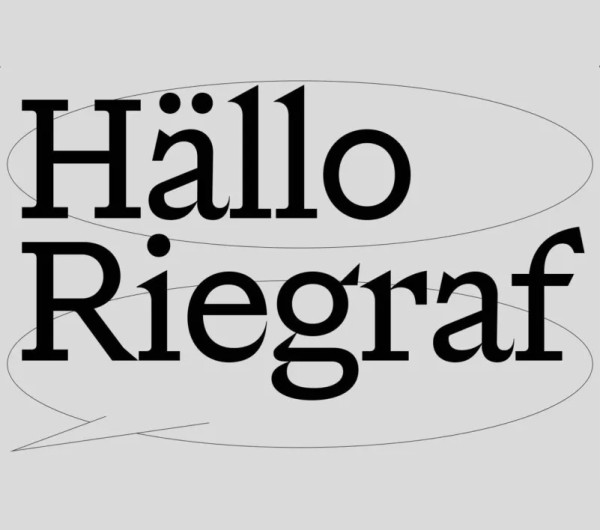
Riegraf Font
Riegraf Font is a simple and serif font crafted & designed by Interval Type. It was born out of an idea of designing a Serif typeface that feels like a geometric Sans-serif grotesk, while preserving the elegance usually associated with Serif typefaces.
The result is a fusion Serif typeface that has simple square slab serifs, high contrast letters, that bring elegance, as well as low contrast letters and numerals/currencies, that might look like they belong to a Sans-serif typeface. This mixed design approach aims to create something truly unique and innovative. In short Riegraf could be described as a Geometric Fusion Serif.
Riegraf Font was designed as a “friend” companion to Riegla, a non-neutral grotesk font family also available on intervaltype.com. These two families share many commonalities and will work well together creating a page that truly stands out typographically.